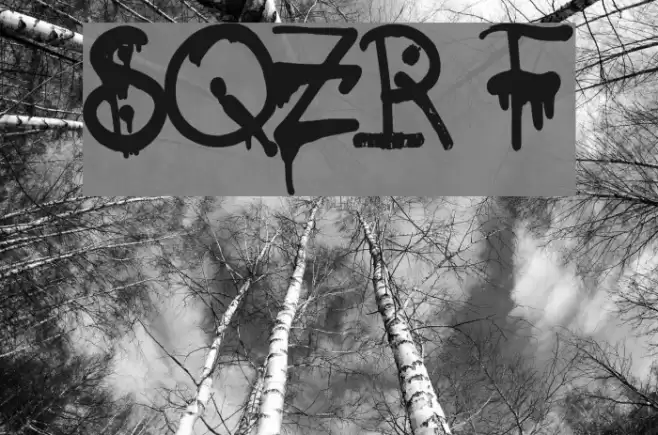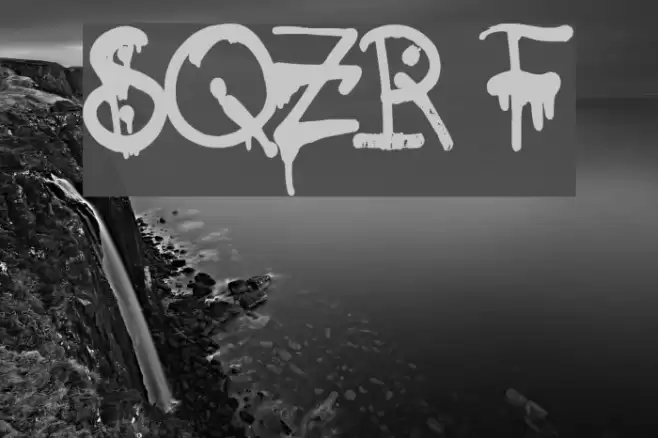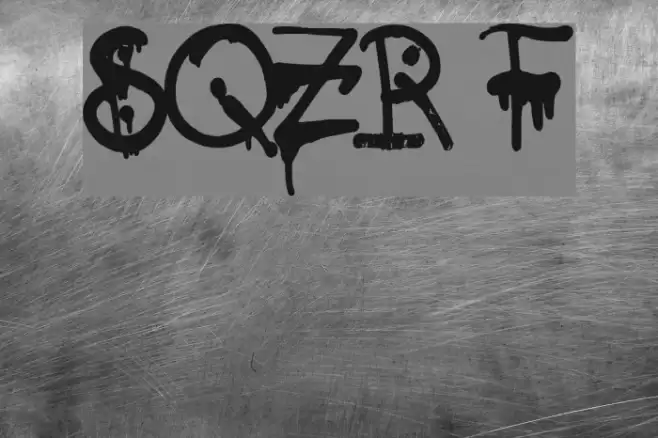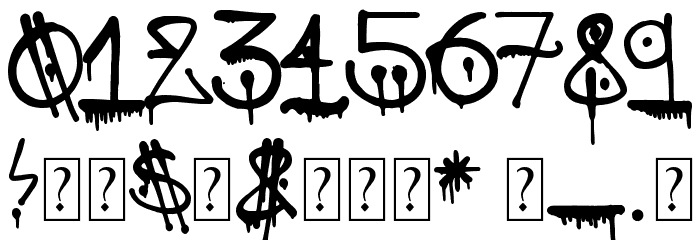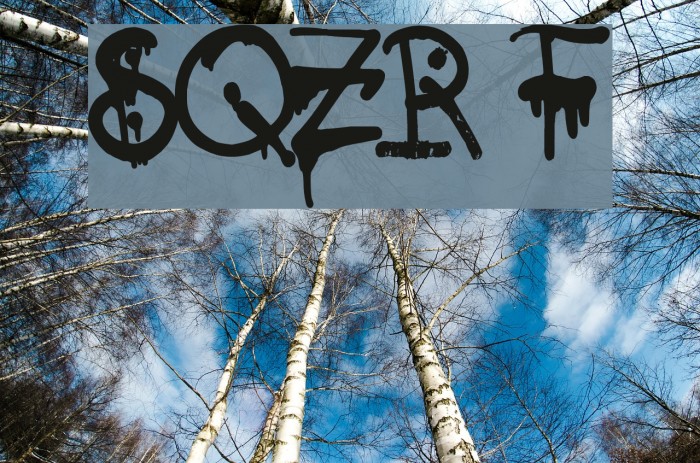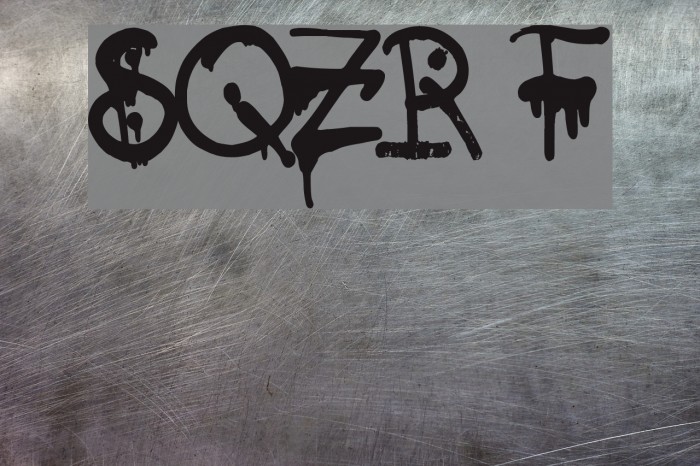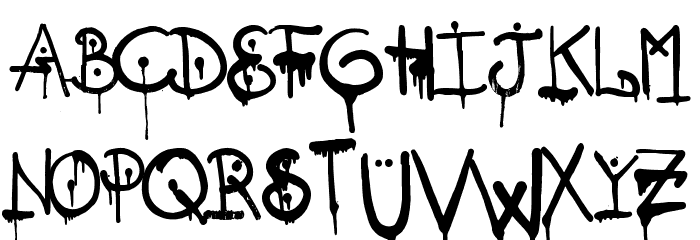
SQZR Font
SQZR Description
This font features a unique and edgy style, reminiscent of graffiti art with its dripping paint effect. Each character appears as though it has been spray-painted, with drips extending from the bottom of the letters, giving it a raw and urban feel. The uppercase and lowercase letters maintain a consistent style, with bold strokes and a slightly irregular form that enhances its street art aesthetic. Numbers and special characters follow the same design, ensuring a cohesive look across all glyphs. This font is perfect for projects that aim to capture a rebellious or artistic vibe, making it ideal for posters, album covers, or any design that seeks to stand out with a bold statement.
An edgy, graffiti-inspired font with a dripping paint effect from Handwritten fonts.
- Proposed Projects: Ideal for street art-themed designs, music album covers, urban event posters, and edgy branding projects.
- Overall Style: Urban, Edgy, Artistic
- Use Case: Headlines, Posters, Logos